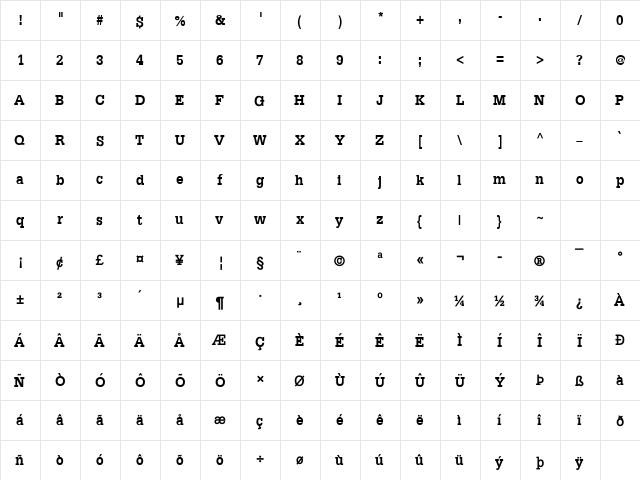
DilleniaUPC Bold Font Preview
DilleniaUPC Bold
Design Context for DilleniaUPC Typeface
DilleniaUPC offers clean, dependable letterforms without strong stylistic allegiance, making it a practical choice for designers who need flexibility. Its bold stroke weight gives it real presence on the page.
Pro Tip: Pair DilleniaUPC with a font of contrasting weight or personality to build a more expressive typographic hierarchy.